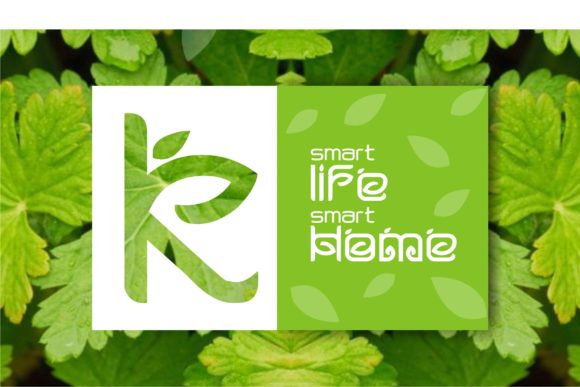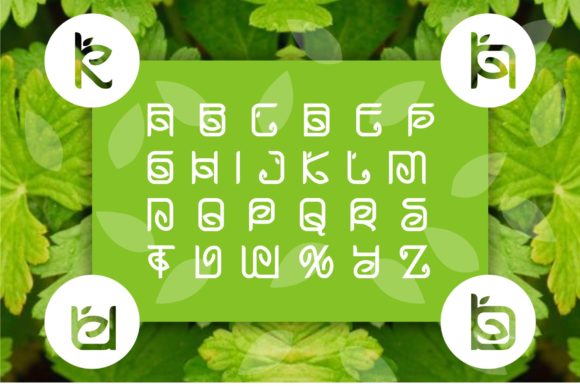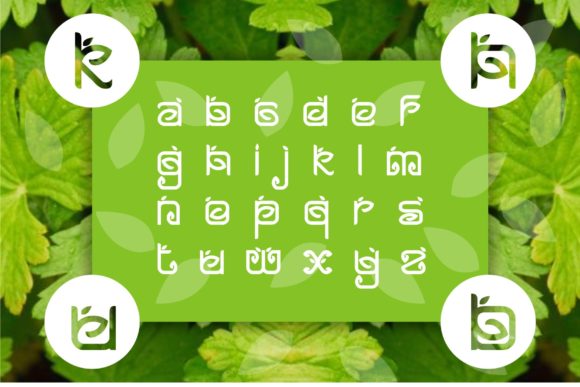
Introducing Greentea Font: The Perfect Blend of Cuteness and Organic Charm
Are you a designer or crafter looking for a font that embodies the spirit of nature and friendliness? Look no further than Greentea Font, a delightful display font that is sure to capture the hearts of your audience. With its adorable leaf elements and organic feel, Greentea Font is the perfect choice for projects that require a touch of whimsy and playfulness.
What Makes Greentea Font So Special?
Greentea Font features cute leaf elements, making this an incredibly friendly and organic display font! The font’s design is inspired by the beauty of nature, with leafy accents and a carefree vibe that is sure to bring a smile to your face. Whether you’re working on a branding project, a craft tutorial, or a social media graphic, Greentea Font is the perfect choice for adding a touch of personality and charm.
Key Features of Greentea Font
- Cute Leaf Elements: The font features adorable leaf elements that add a touch of organic charm to your designs.
- Organic Feel: Greentea Font has a carefree, natural vibe that is perfect for projects that require a friendly and approachable tone.
- Display Font: Greentea Font is designed specifically for display purposes, making it perfect for headlines, titles, and other attention-grabbing elements.
- Versatile: The font is suitable for a wide range of projects, from branding and advertising to crafting and DIY tutorials.
How to Use Greentea Font in Your Designs
Why Designers and Crafters Love Greentea Font
Greentea Font has quickly become a favorite among designers and crafters, and it’s easy to see why. Here are just a few reasons why this font is a must-have:
- Unique and Eye-Catching: Greentea Font is a true standout, with its adorable leaf elements and organic feel. It’s the perfect way to add some personality to your designs and make them stand out.
- Easy to Read: Despite its playful design, Greentea Font is incredibly easy to read, even at smaller sizes. This makes it perfect for use in a variety of projects, from signage to social media graphics.
- Versatile: Greentea Font is suitable for a wide range of projects, from formal and professional to casual and playful.
If you’re looking for a font that embodies the spirit of nature and friendliness, look no further than Greentea Font. With its adorable leaf elements and organic feel, this display font is sure to capture the hearts of your audience. Whether you’re a designer or crafter, Greentea Font is a must-have for any project that requires a touch of whimsy and playfulness.